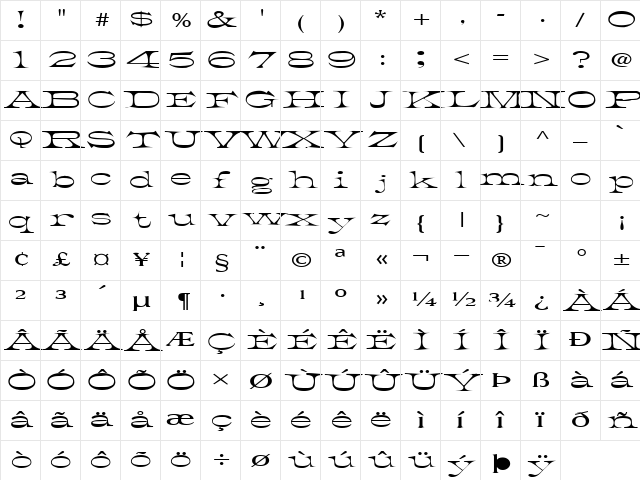
Complete HeartLightBold70 Bold glyph index. Displaying only characters natively supported by HeartLightBold70 Bold font.
HeartLightBold70 is a composed and adaptable typeface that performs quietly and consistently across a wide range of design contexts. Its bold stroke weight gives it real presence on the page.